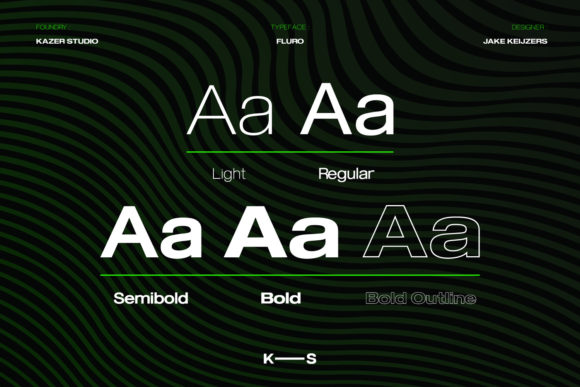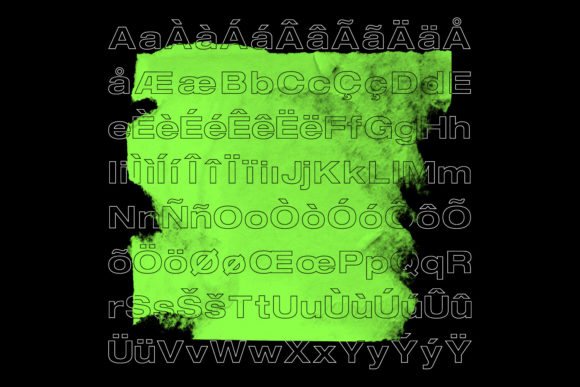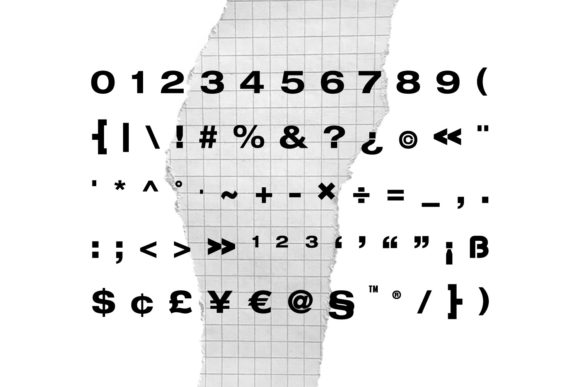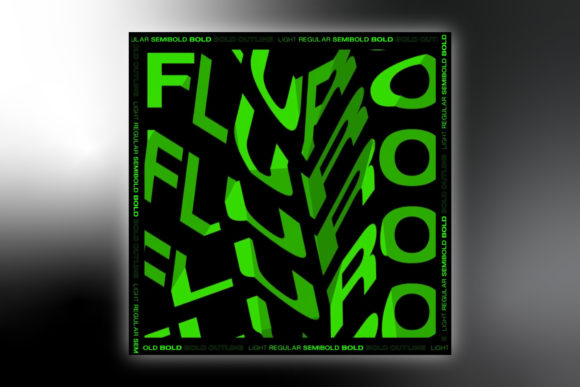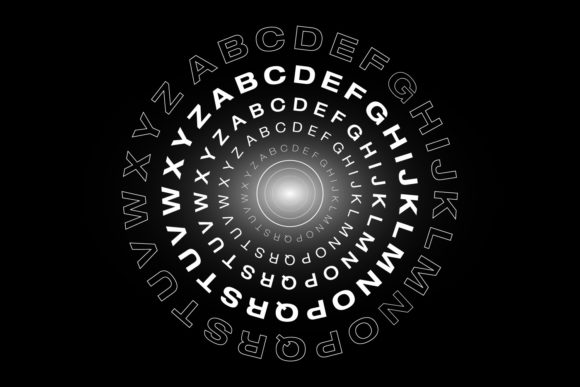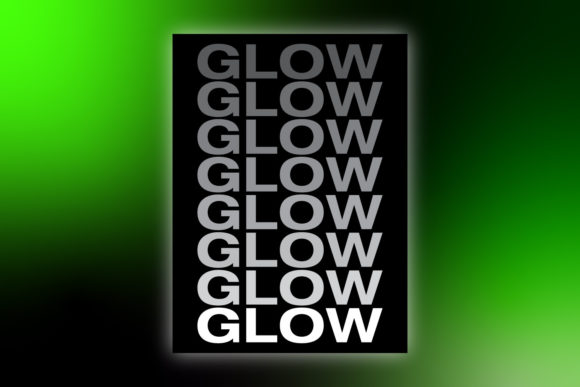
Introducing Fluro Font: The Bold and Cool Sans Serif for Your Creative Projects
In the world of typography, fonts play a crucial role in making your designs stand out. Whether you’re a designer, craftsperson, or simply someone who loves to dabble in creative projects, having the right font can make all the difference. If you’re on the hunt for a bold and cool sans serif font that’s perfect for a variety of applications, look no further than Fluro Font. In this article, we’ll dive deep into what makes Fluro Font a must-have in your typography arsenal.
What is Fluro Font?
Fluro is a bold and cool sans serif font designed to add a unique touch to your projects. Its clean lines and modern aesthetic make it an ideal choice for a wide range of applications, from web designs and business cards to posters, flyers, and more. The beauty of Fluro lies in its versatility; it’s a font that can effortlessly transition from digital platforms to print materials, ensuring your designs look great everywhere.
Key Features of Fluro Font
- Bold and Eye-Catching: Fluro Font is designed to make a statement. Its bold presence ensures that your text doesn’t go unnoticed, making it perfect for headlines, titles, and any text that you want to stand out.
- Cool and Modern Aesthetic: The sans serif design of Fluro gives it a clean and contemporary look that’s hard to resist. Its modern aesthetic ensures that your designs feel current and fresh.
- Highly Versatile: Whether you’re working on a web design, a business card, or a poster, Fluro Font adapts seamlessly. Its versatility makes it a valuable addition to any designer’s font library.
- Easy to Read: Despite its bold nature, Fluro Font remains clear and easy to read, even at smaller sizes. This makes it not only stylish but also practical for a variety of uses.
Uses of Fluro Font
The applications of Fluro Font are endless, thanks to its versatile and appealing design. Here are some of the best ways to use Fluro:
- Web Designs: Use Fluro Font for headings and titles to add a bold and modern touch to your website. Its clean design works well with a variety of color schemes and layouts.
- Business Cards: Stand out from the crowd with Fluro Font on your business cards. Its bold and cool aesthetic ensures that your card is memorable and reflects your professional brand.
- Posters and Flyers: For any print materials, Fluro Font can be used to grab attention quickly. It’s perfect for titles and key messages that you want to convey effectively.
- Social Media Graphics: Enhance your social media presence with Fluro Font. It’s great for creating engaging graphics, banners, and posts that require a modern and bold typography.
Tips for Using Fluro Font Effectively
To make the most out of Fluro Font, consider the following tips:
- Mix with Other Fonts: While Fluro Font is bold and beautiful on its own, pairing it with complementary fonts can enhance your design. Look for fonts that are more subtle to create a balanced look.
- Play with Colors: Don’t be afraid to experiment with different colors. Fluro Font works well with both bright and muted color schemes, so feel free to get creative.
- Consider Size and Weight: Depending on your design, you might want to vary the size and weight of Fluro Font to create hierarchy and emphasis.
Fluro Font is a bold and cool sans serif font that’s perfect for designers and craftspersons looking to add a unique touch to their projects. Its versatility, modern aesthetic, and readability make it an excellent choice for a wide range of applications. Whether you’re designing for web, print, or social media, Fluro Font is sure to elevate your designs and make them stand out. So, why wait? Explore the possibilities of Fluro Font today and take your typography to the next level.